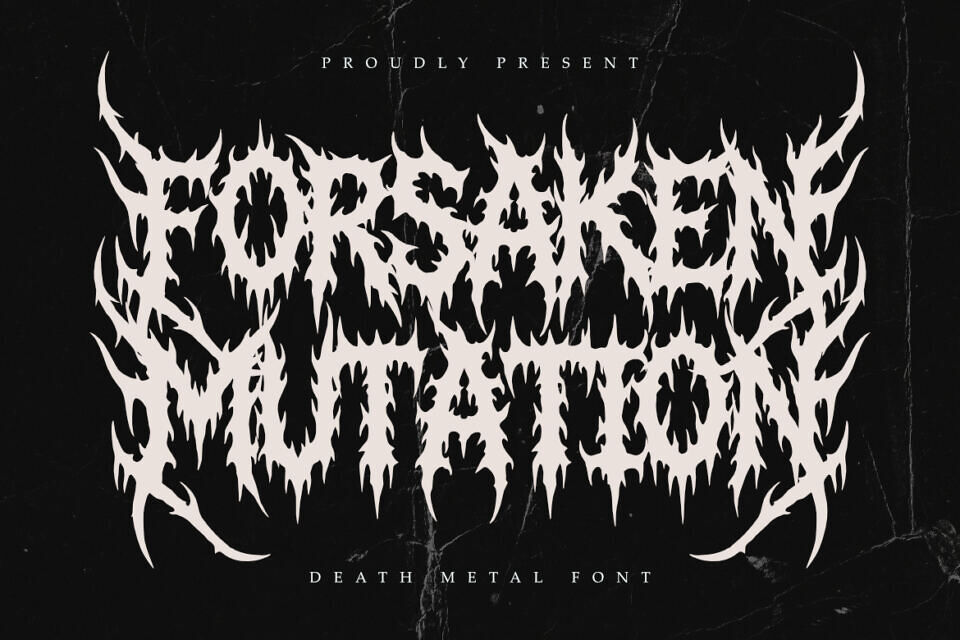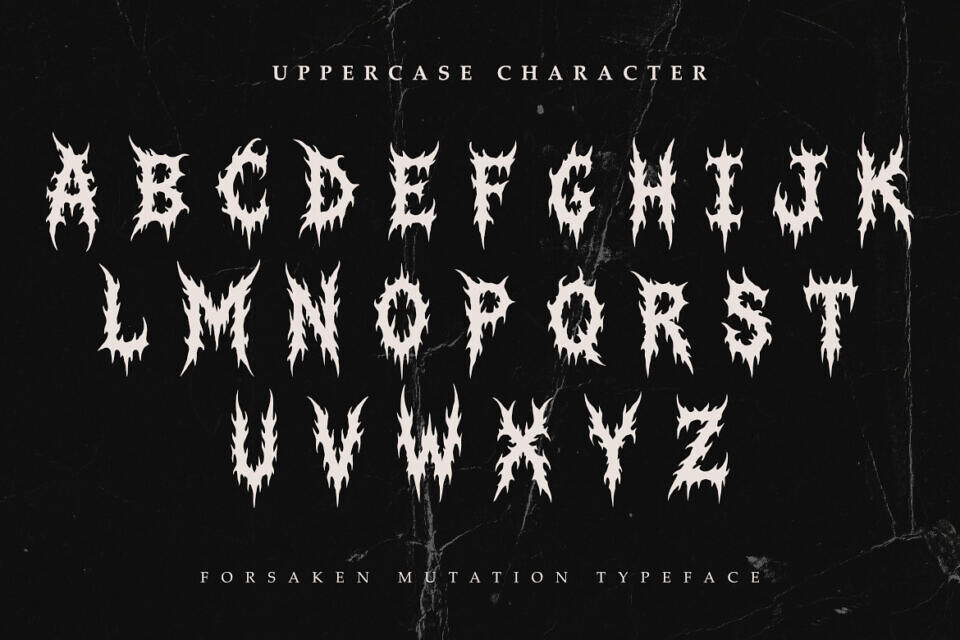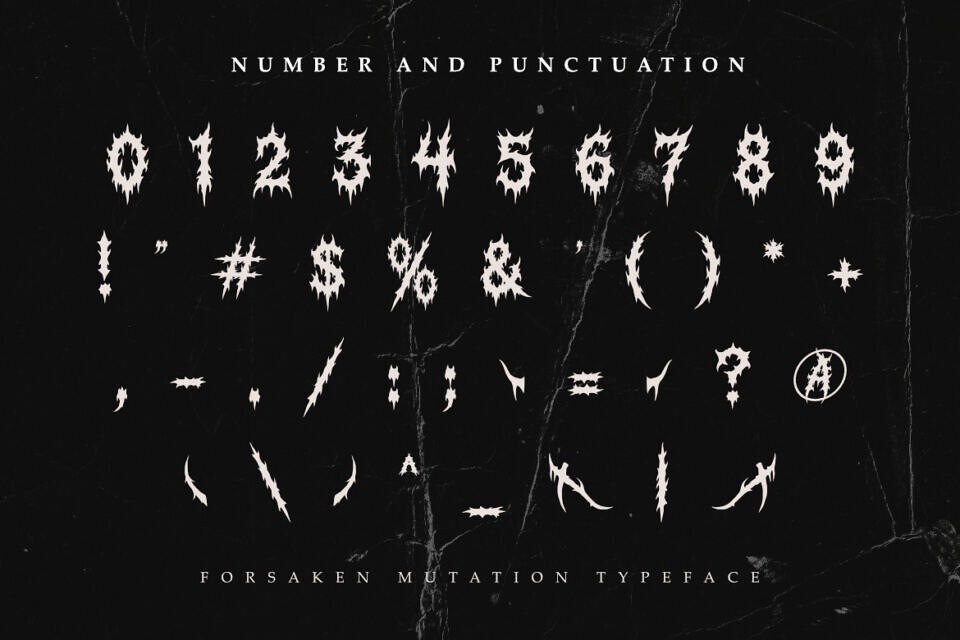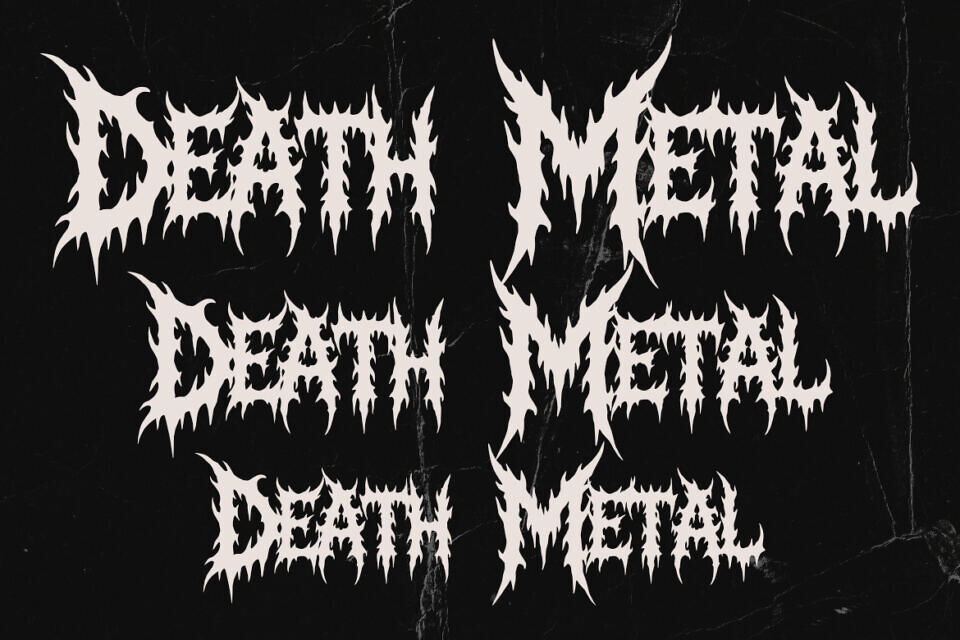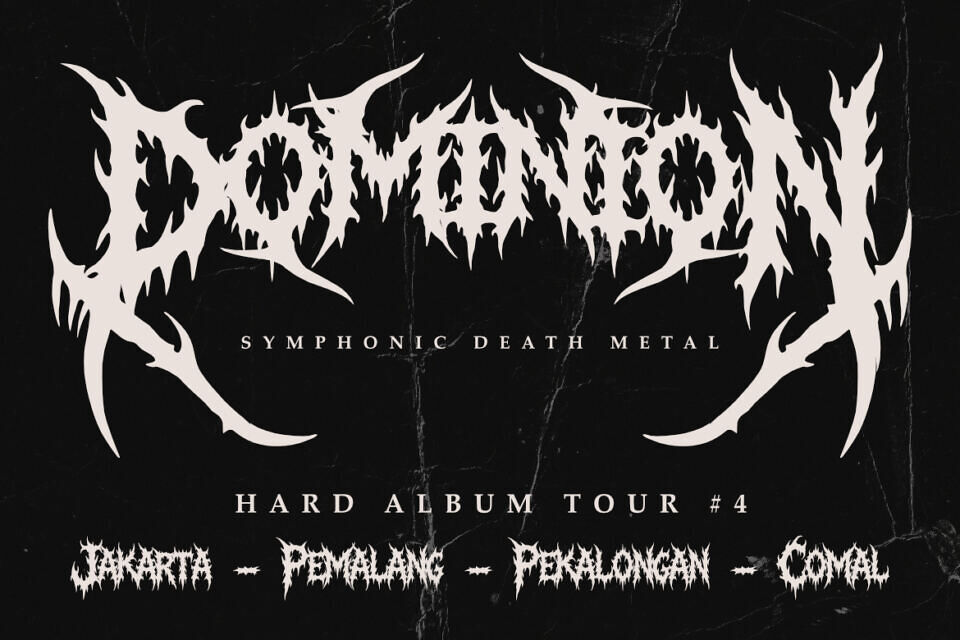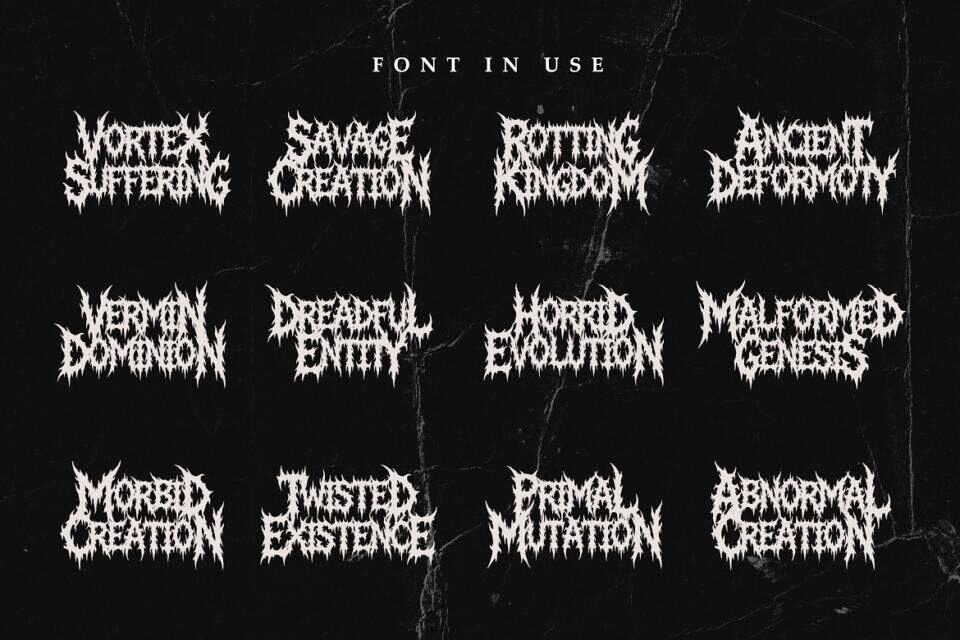
Forsaken Mutation Font
Forsaken Mutation is a brutal professional font designed for sophisticated branding and high-end extreme design projects. Its sharp and aggressive letterforms provide a contemporary yet timeless feel, striking a perfect balance between organic mutation structures and modern metal aesthetics.
This font embodies the essence of modern minimalism while maintaining a sense of raw power and refinement, making it perfect for logos, corporate materials, and professional presentations within the music industry. Whether you are crafting a corporate identity for an extreme label, designing sleek business cards for a tattoo studio, or working on editorial content, Forsaken Mutation ensures your work exudes professionalism and style.